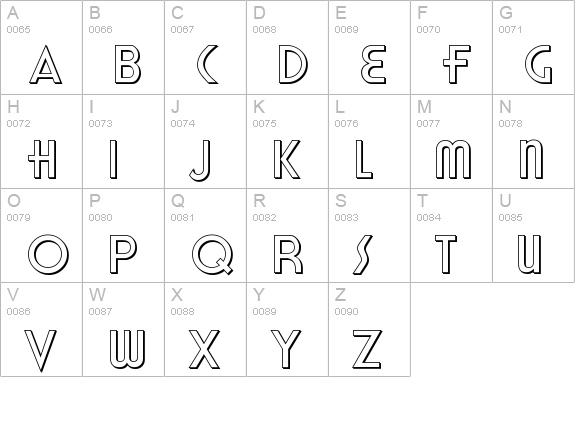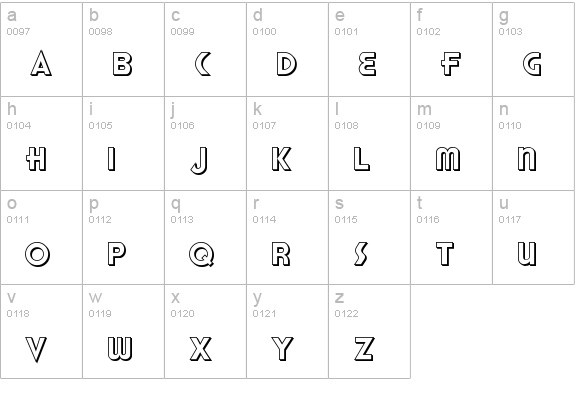
Honest John's Shadow Font Details
Honest John's Shadow font is a striking and versatile typeface that adds depth and character to any design project. Featuring a unique shadow effect, this font exudes a sense of mystery and sophistication. With its clean lines and bold presence, Honest John's Shadow font is perfect for headlines, logos, and branding materials. What sets Honest John's Shadow font apart is that it is available for free download at FontsMarket.com. This means that you can easily access this high-quality font without any cost, making it a valuable addition to your font collection. Whether you're a designer looking to elevate your projects or a content creator seeking a standout typography choice, Honest John's Shadow font delivers style and impact. Download it today and let your creativity shine with this exceptional font.